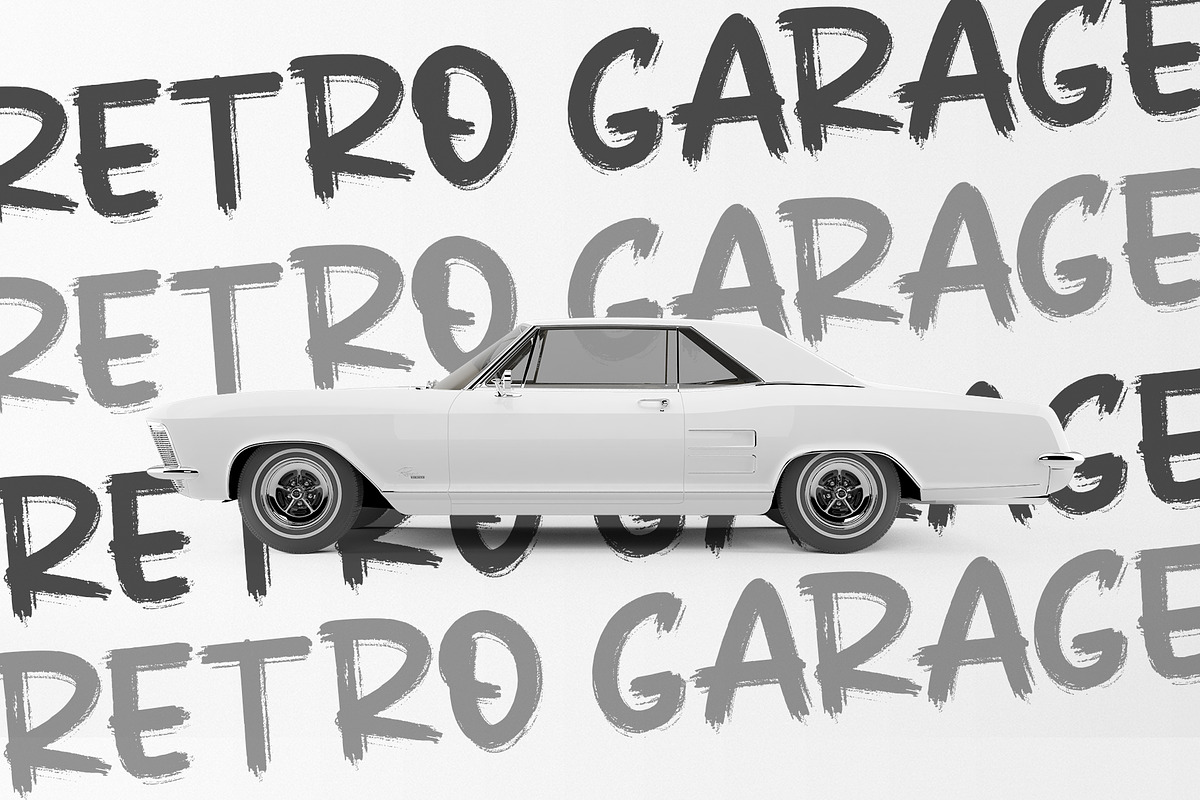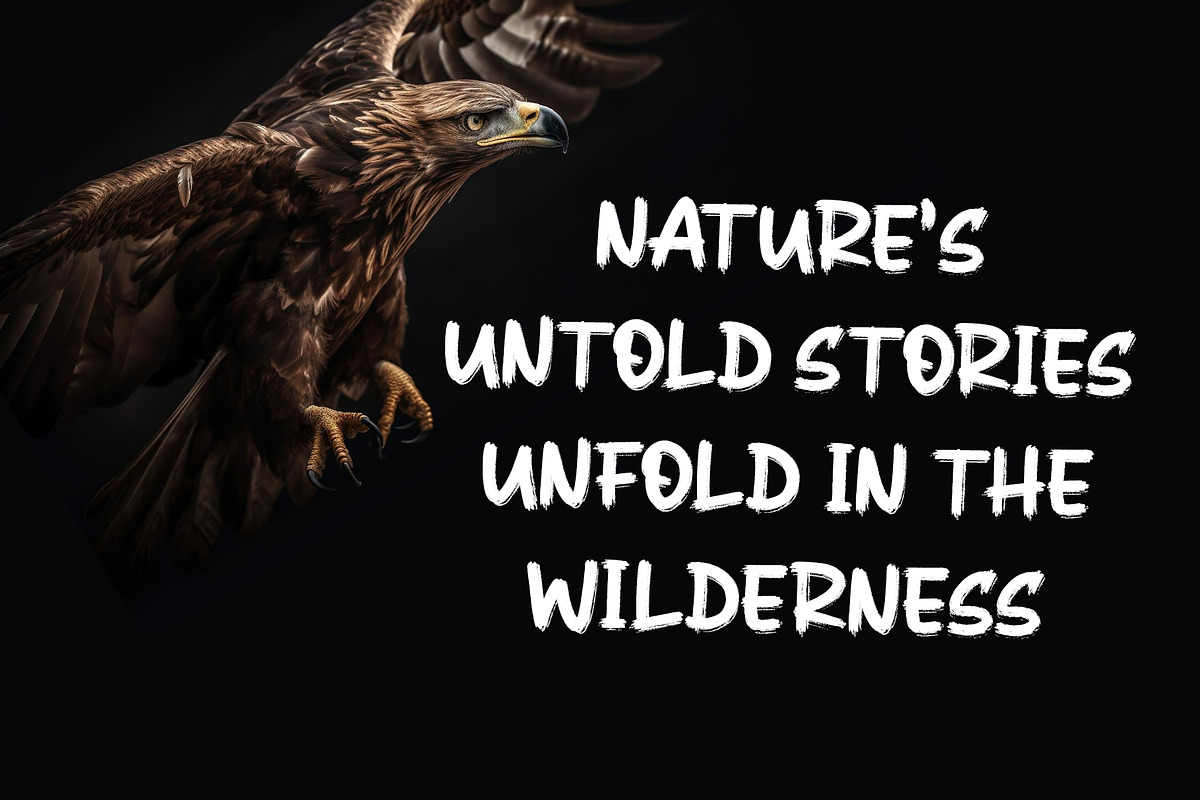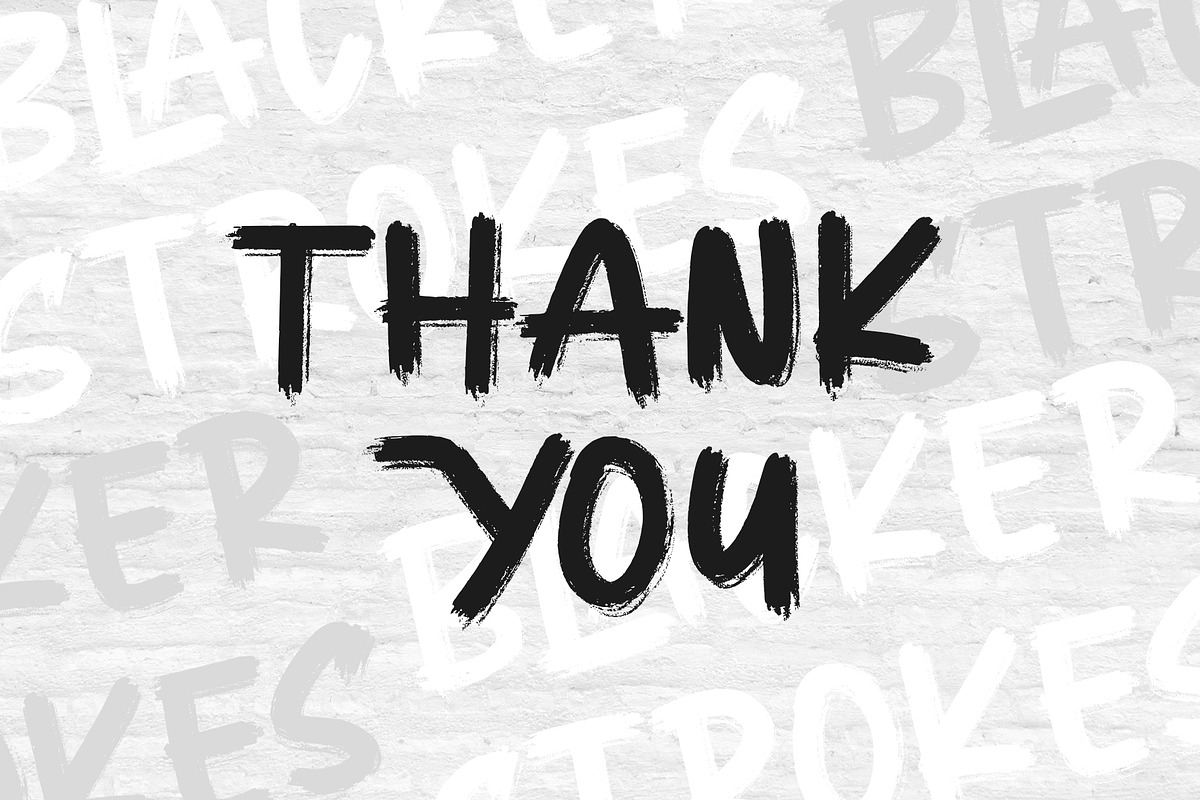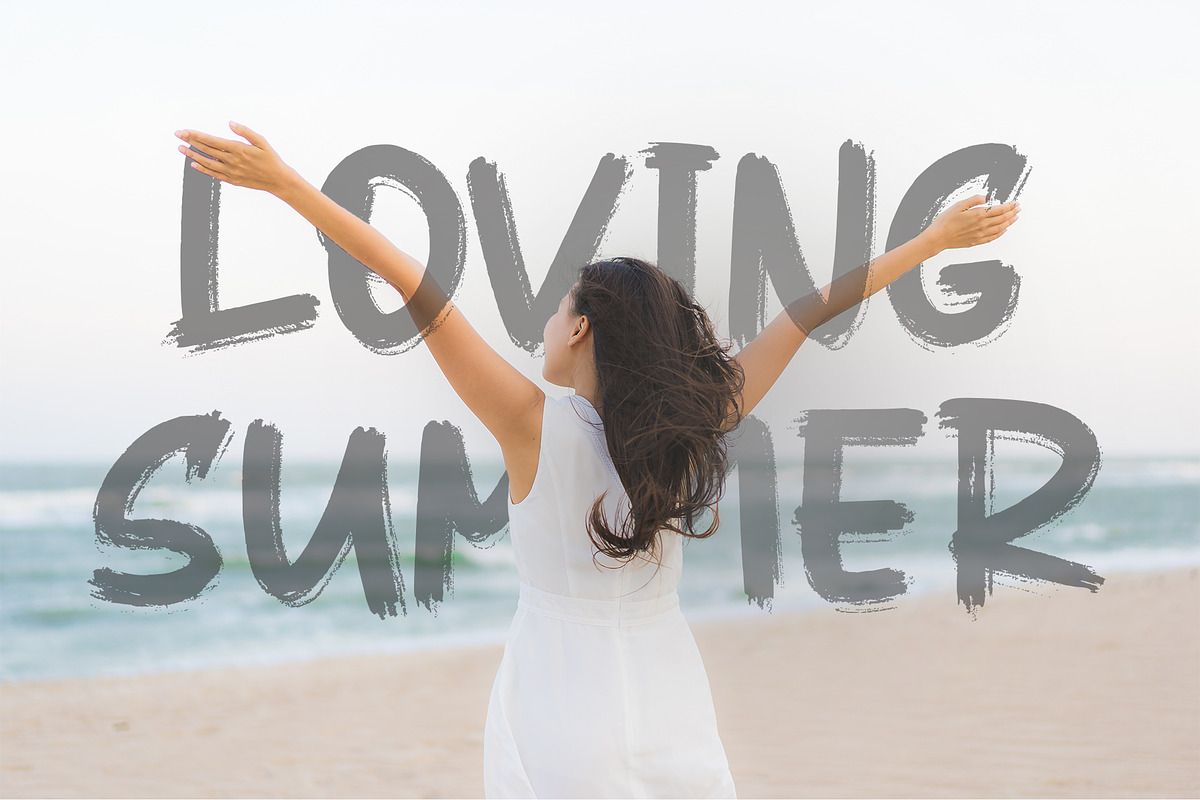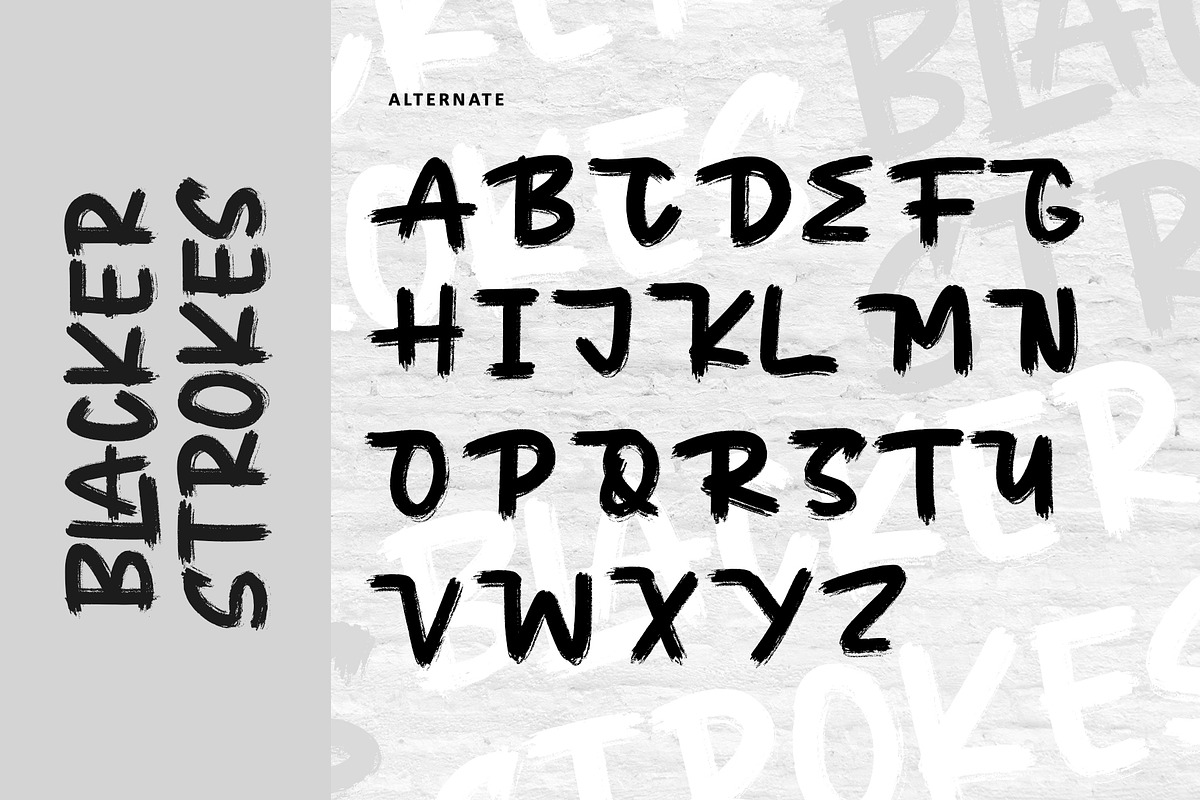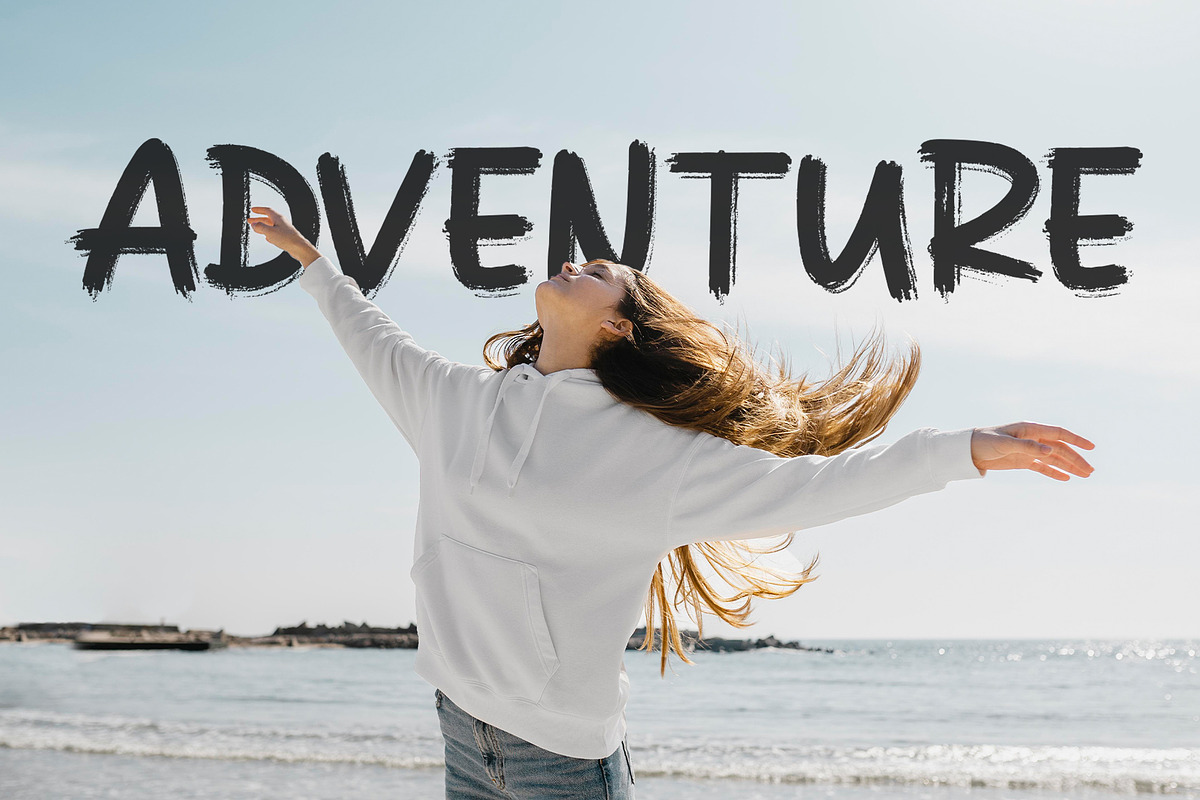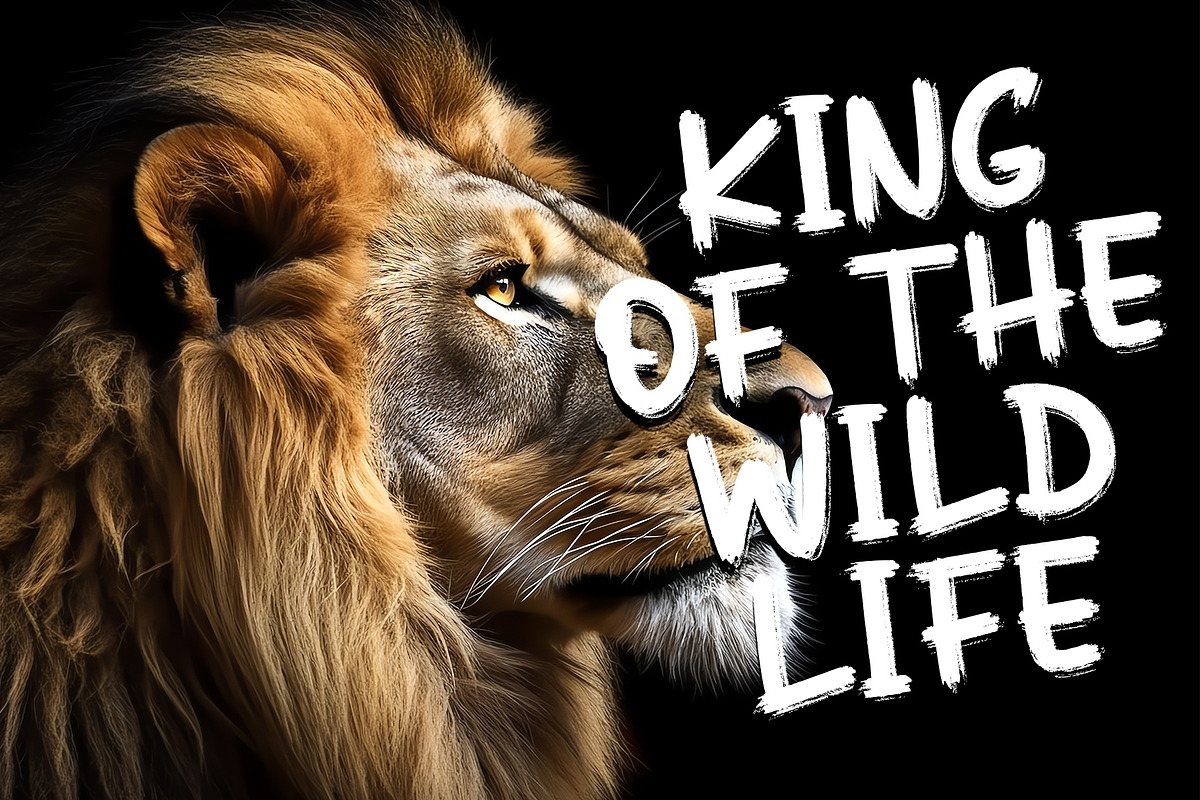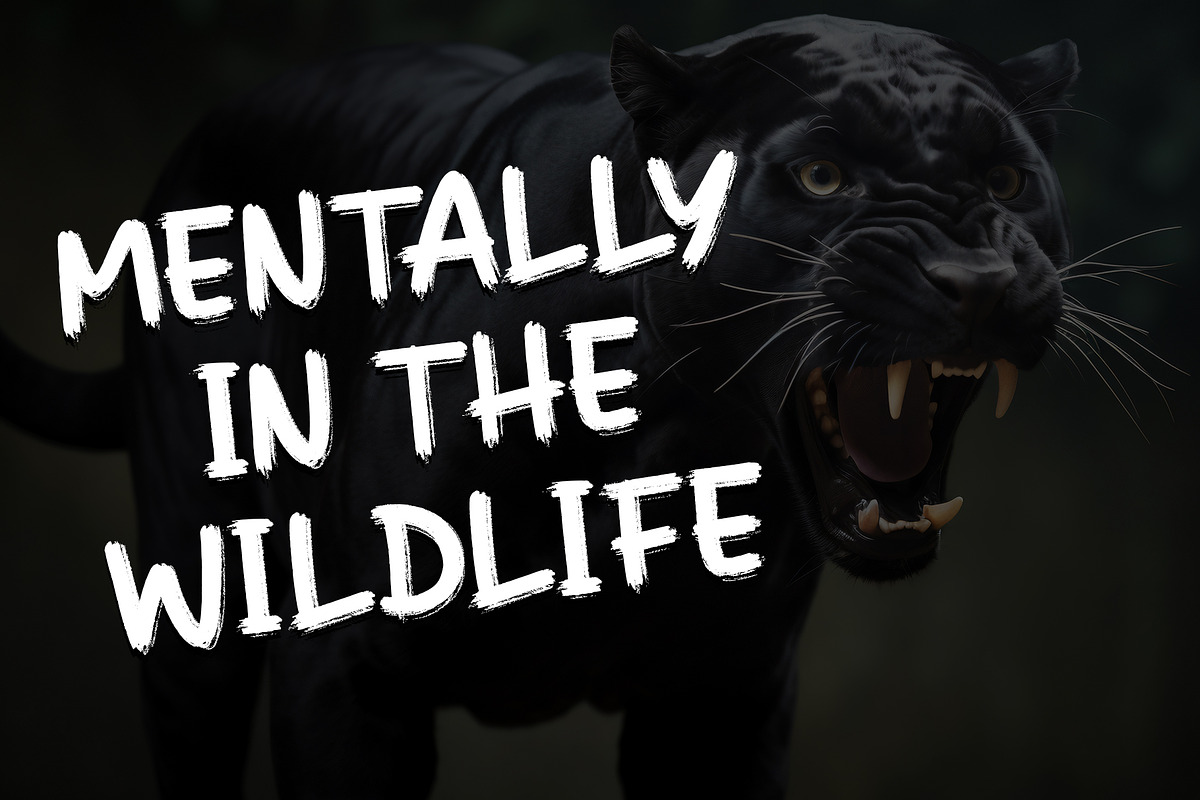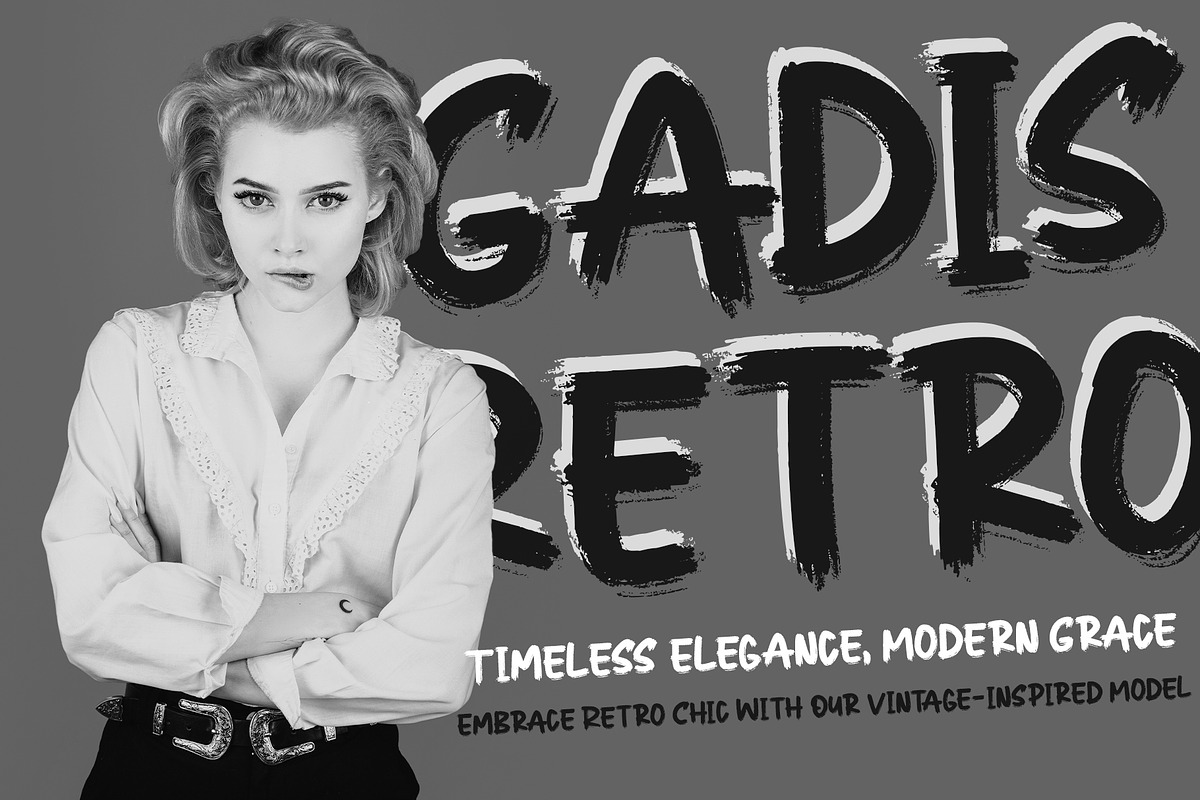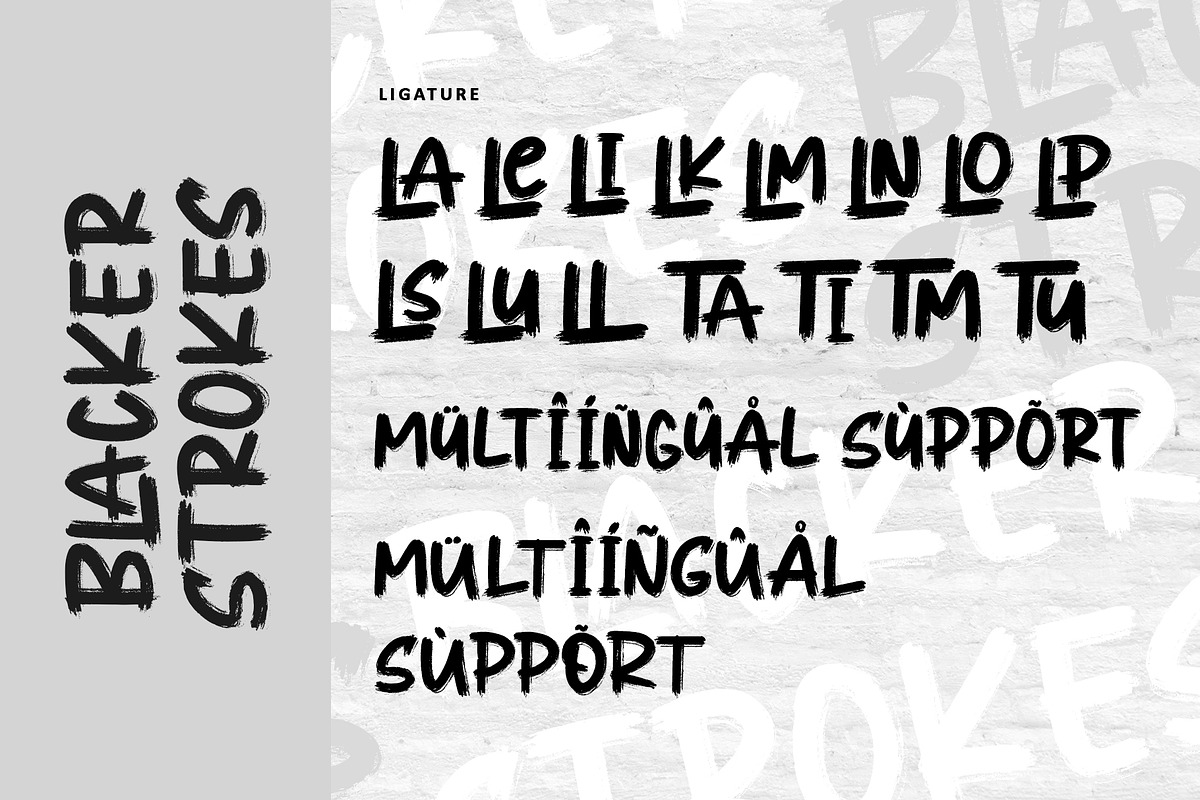
Blacker Strokes
Dive into creativity with Blacker Strokes, a font embodying the wild beauty of natural brush strokes. Elevate logos, branding, and more with its mesmerizing design. Versatile and impactful, it adds character to any project. With PUA code for easy access to captivating glyphs, Blacker Strokes is your artistic ally for limitless design possibilities and lasting impressions.
- Support multilingual; ä ö ü Ä Ö Ü ß ¿ ¡
- lowercase and uppercase letters
- Ligature, alternate dan swash